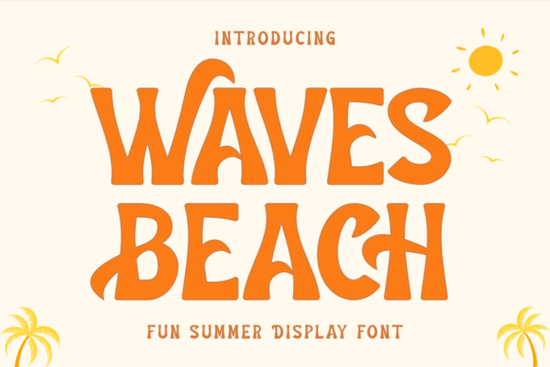
If you’re looking for a display font that captures the carefree feel of summer, Waves Beach Font is worth a closer look. Its bold, wavy letterforms instantly remind me of ocean waves and sunny days at the shore. This isn’t a subtle, quiet typeface it’s meant to stand out and bring a playful, tropical energy to anything you put it on. Whether you design t-shirts, create social media graphics, or build brand identities, this font gives you that bright, cheerful summer vibe without overcomplicating things.
What kind of projects work best with this font?
Waves Beach Font is a display font, so it shines when used for headlines, short phrases, and single words. It’s less suited for long body text, but that’s not what it’s made for. Here are some real-world uses where it really delivers:
- Beach party invitations and save-the-dates – the wavy style instantly sets a relaxed, festive tone.
- T-shirt designs and tote bags – bold letterforms read well even from a distance, and the wavy shapes add movement.
- Mugs and drinkware – perfect for summer quotes or funny vacation messages.
- Logo and branding – especially for beachside businesses, tropical cafes, or travel-related brands.
- Social media graphics – eye-catching for Instagram stories, Pinterest pins, and YouTube thumbnails.
- Posters and flyers for summer events, pool parties, or outdoor concerts.
Because the letterforms are thick and playful, they work well on both light and dark backgrounds. You can pair the font with a simple background pattern or let it stand solo the waviness does the heavy lifting.
Is it easy to combine with other fonts?
Yes, and you’ll get the best results when you pair it with a simpler, more neutral typeface. Since Waves Beach Font is decorative, you want contrast. A clean sans-serif like Moment Request Font works nicely for secondary text, while a friendly script like Juicy Lemon Font can add a handwritten, organic feel for accents. If you’re going for a citrus-themed design, a font like Lemon Font also complements the tropical direction without competing for attention.
Another good pairing is Oopsy Doodle Font its hand-drawn, slightly messy style echoes the playful nature of Waves Beach Font without being too similar. And if you need a versatile, friendly sans-serif for body copy, Helpful Person Font can ground the design with a warm, approachable tone.
If you’re creating a summer collection, this font can be the anchor for your whole line. Use it on a few key products, then echo the style in other elements (like wavy borders or ocean‑colored backgrounds) to build a cohesive look.
Does the font work for branding and logos?
Absolutely, as long as the brand has a casual, fun, or tropical personality. A coffee shop by the beach? A surf lesson company? A pool‑side event planner? The wavy letterforms give instant recognition and a memorable silhouette. Because the font is all caps with a consistent weight, it reads clearly even at small sizes like website headers or merchandise tags. Just keep in mind it’s not ultra‑formal if your brand needs to be serious, this probably isn’t the right choice. But for joyful, sunny branding, it’s spot on.
Tips for getting the most out of Waves Beach Font
- Use color wisely. Coral, turquoise, sunny yellow, and white are natural companions. Avoid dark, muddy colors that fight the wavy energy.
- Add a slight shadow or outline to make the waviness pop, especially on busy backgrounds.
- Keep letter spacing a bit loose – the wavy shapes need breathing room to be readable.
- Test it on mockups before finalizing. A t‑shirt mockup or beach bag mockup will show you how the font behaves in real life.
- Pair it with a simple illustration like a sun, wave, or palm leaf for a complete summer composition.